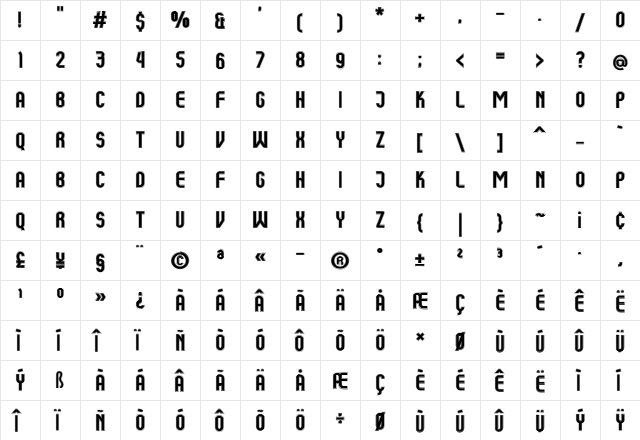
Kumba College
| Style | College |
| Foundry | Audry Kitoko Makelele |
| Designer | Audry Kitoko Makelele |
Design Context for Kumba Typeface
Kumba brings high-energy athletic personality to the page — its confident, muscular forms are built for impact.
Built for sports team identities, athletic apparel, event posters, and high-energy promotional material.
Font Pairing: Use alongside a condensed or geometric sans for supporting copy — keep the pairing bold, functional, and free of ornament.
Pro Tip: Kumba thrives on contrast — try it large, bold, and tight against a clean background for maximum visual impact.